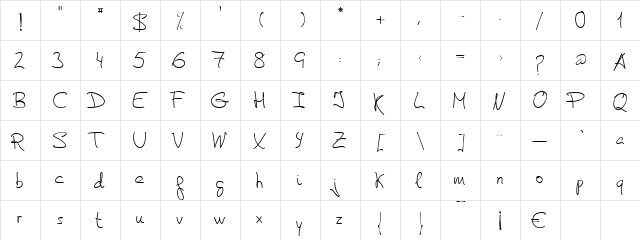
de Manu 2 Regular Font Preview
de Manu 2 Regular
Design Context for de Manu 2 Typeface
de Manu 2 takes a measured approach to typography — its balanced proportions and neutral character make it a reliable workhorse for both digital and print work.